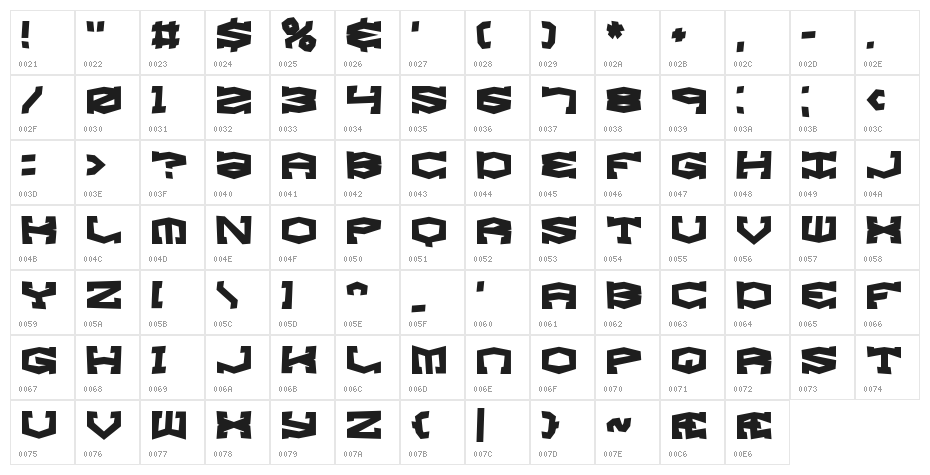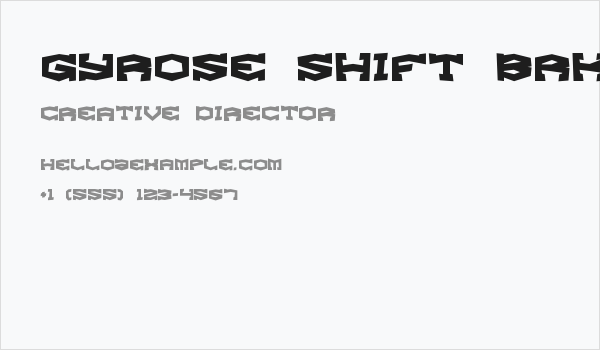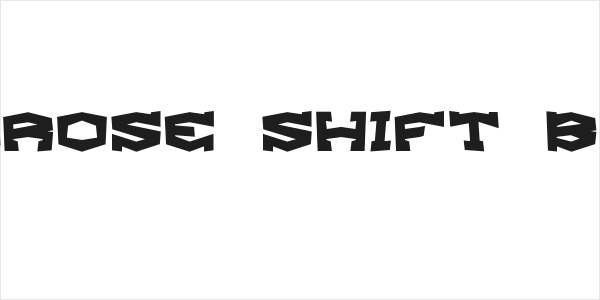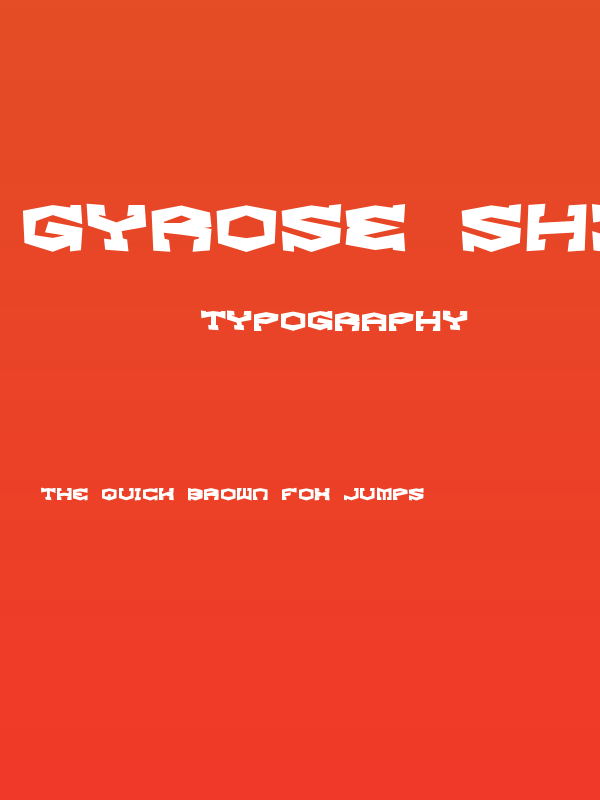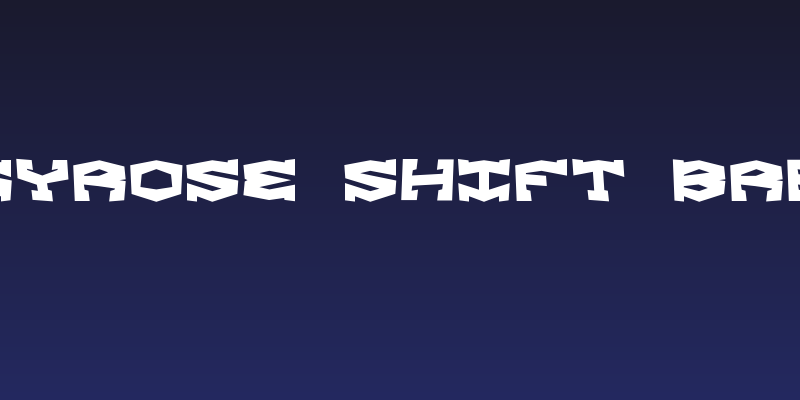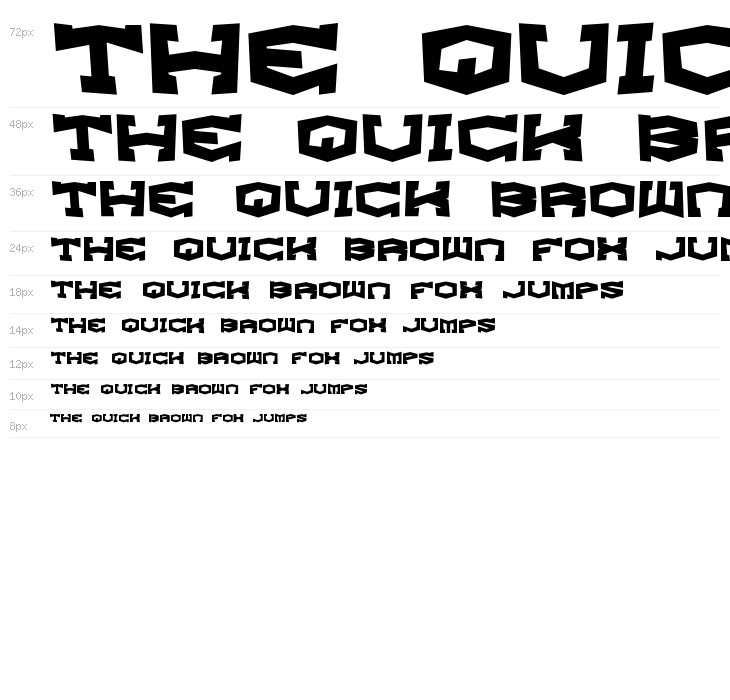
Gyrose Shift BRK Font
Gyrose Shift BRK Description
This font features a bold and angular design with a distinct geometric style. The characters are constructed with sharp edges and a blocky appearance, giving it a futuristic and dynamic look. The uppercase and lowercase letters maintain a consistent style, with each character exhibiting a unique twist or shift in its form, adding to the overall edgy aesthetic. The numbers and special characters follow the same design principles, ensuring uniformity across the font. Its bold presence makes it suitable for attention-grabbing headlines or creative projects that require a modern and unconventional typeface.
Proposed ProjectsIdeal for sci-fi themed designs, video game graphics, posters, and branding that requires a modern edge.